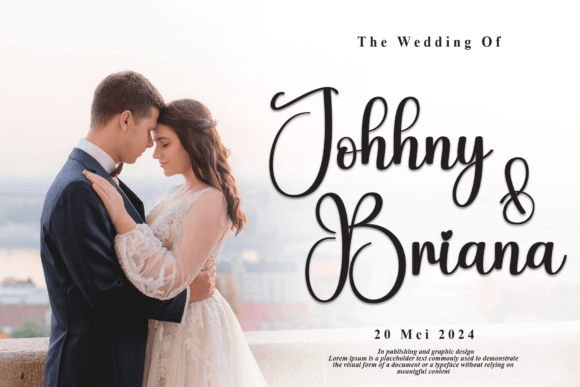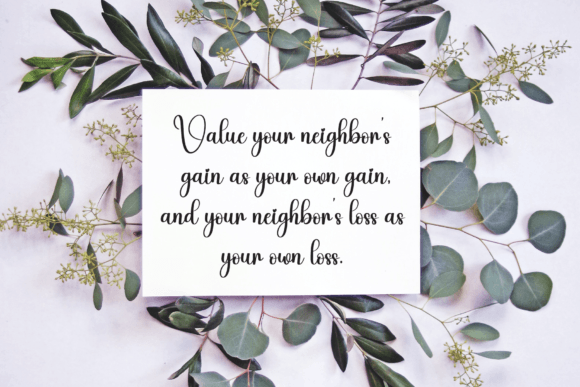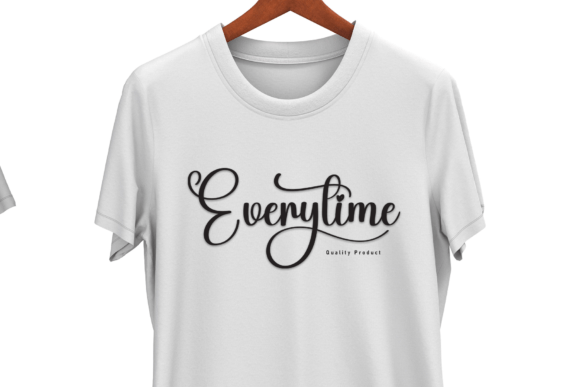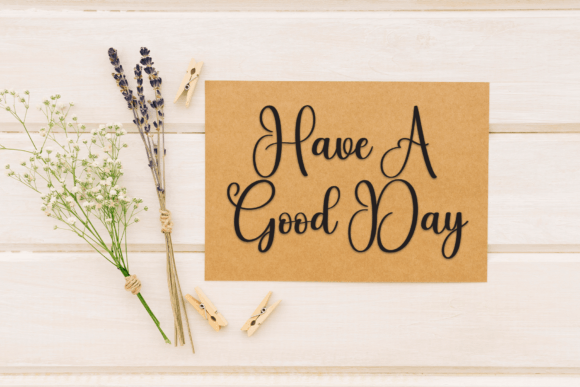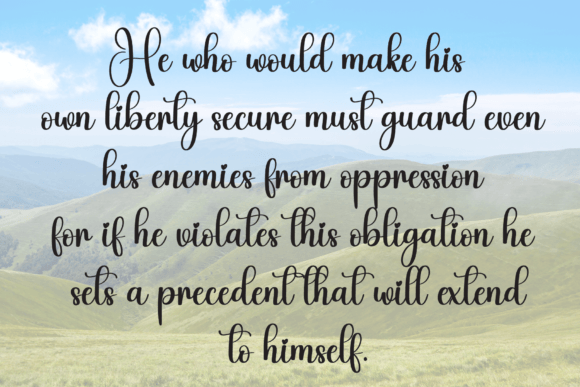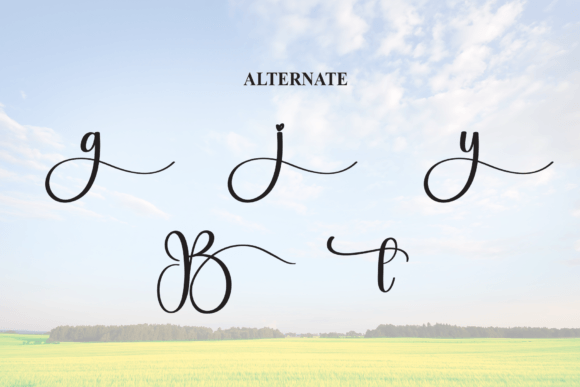
Discover the Delightful Charm of Brightant Font
Have you ever been in the midst of a design project, only to find that it’s missing that special something? I recall a particularly frustrating experience while working on a wedding invitation design. My client wanted a font that was both elegant and playful, but I just couldn’t seem to find the right fit. That was until I stumbled upon Brightant Font, a delightfully friendly handwritten display font that has since become a staple in my design toolkit.
A Personal Review of Brightant Font
What I Love About Brightant ✨
- ✅ Its jovial spirit and charming character make every project feel more approachable and fun.
- ✅ The font’s playful hint of cheerfulness is perfect for wedding invitations, greeting cards, and other creative designs.
- ✅ Brightant makes every word memorable, adding a fun and whimsical flair to your design journey.
- ✅ Its friendly and approachable vibe makes it an excellent choice for designs that require a personal touch.
- ⚠️ While Brightant is incredibly versatile, it may not be the best fit for more formal or corporate designs.
- ⚠️ Some users may find that the font’s playful nature can be overwhelming if overused.
A Practical Guide to Using Brightant Font
The Story Behind Brightant Font
Brightant Font was designed with the intention of creating a friendly and approachable display font that would bring joy to designers and their clients. Its creator, a passionate typographer, drew inspiration from classic handwritten fonts and infused them with a modern, playful twist. The result is a font that is both charming and memorable, perfect for designs that require a personal touch.
| What type of designs is Brightant best suited for? | Brightant is perfect for wedding invitations, greeting cards, and other creative designs that require a playful hint of cheerfulness. |